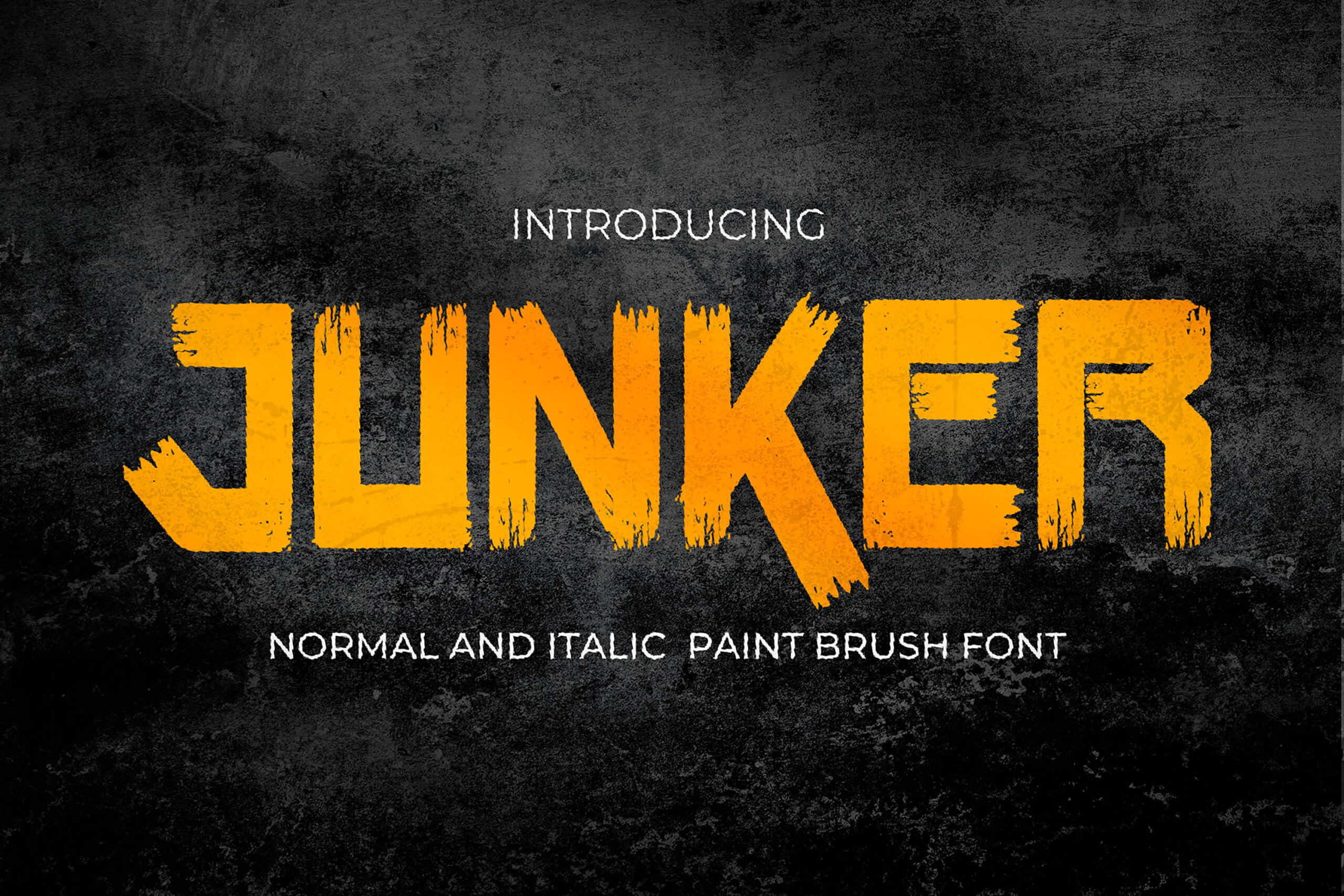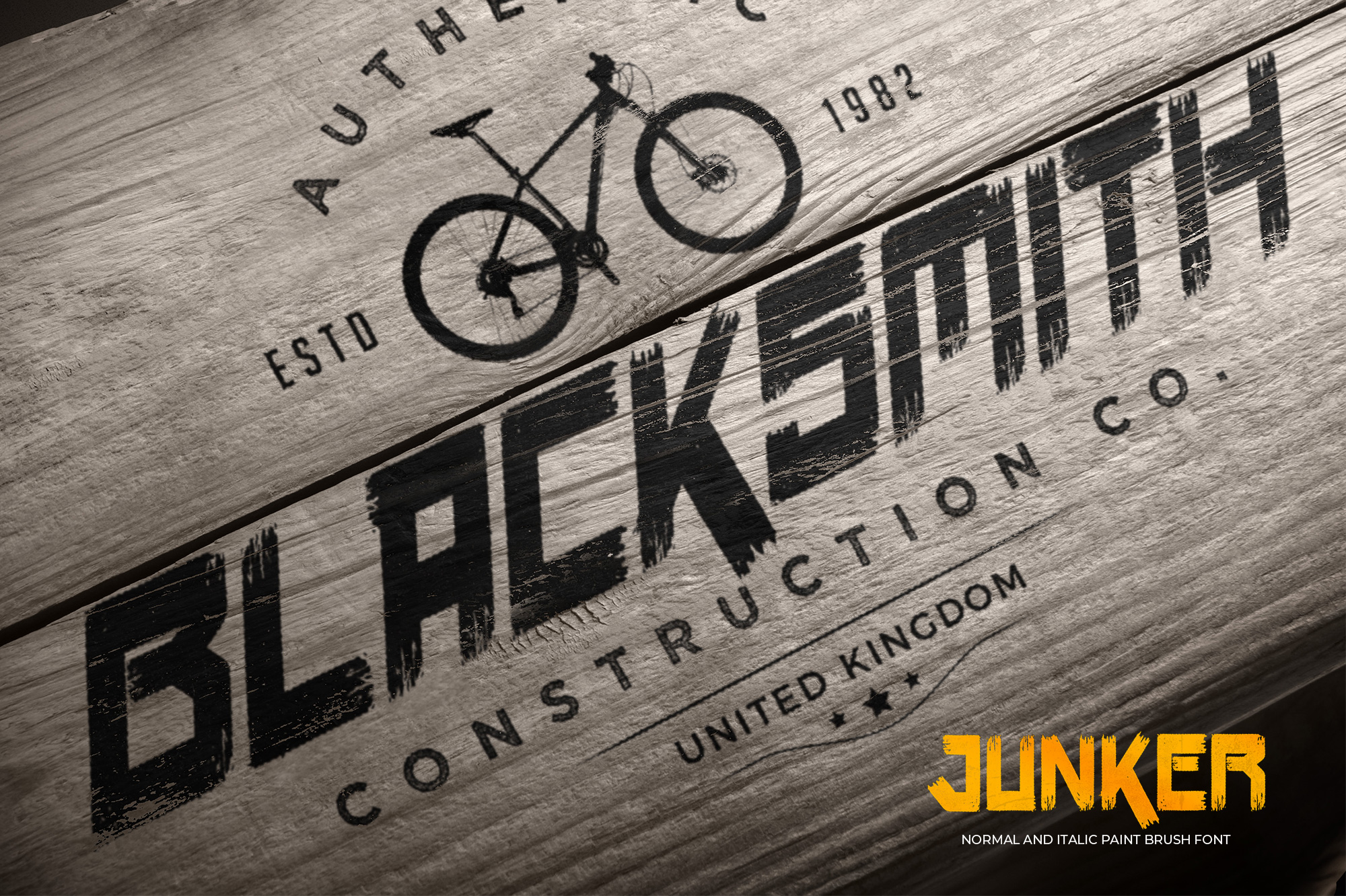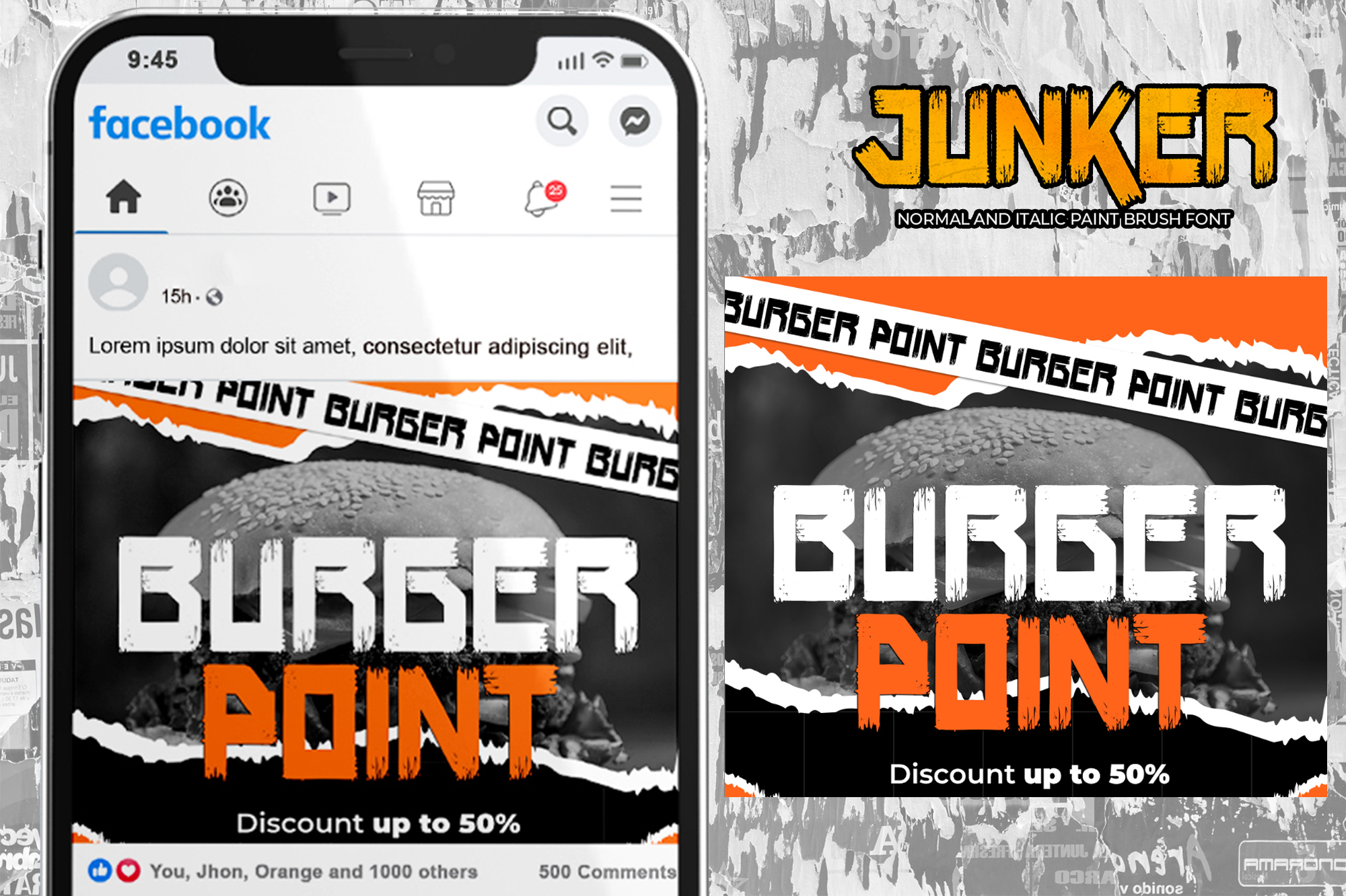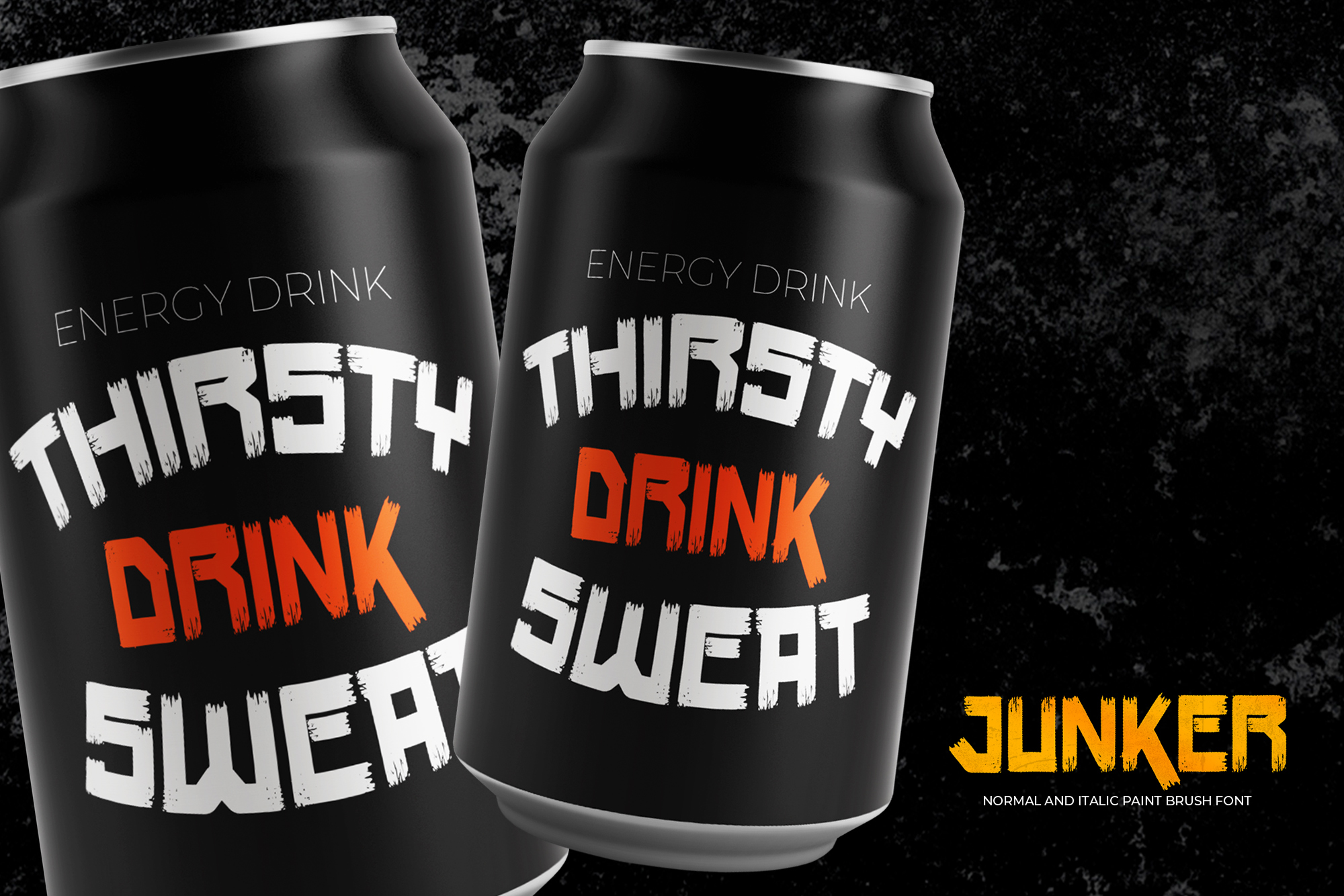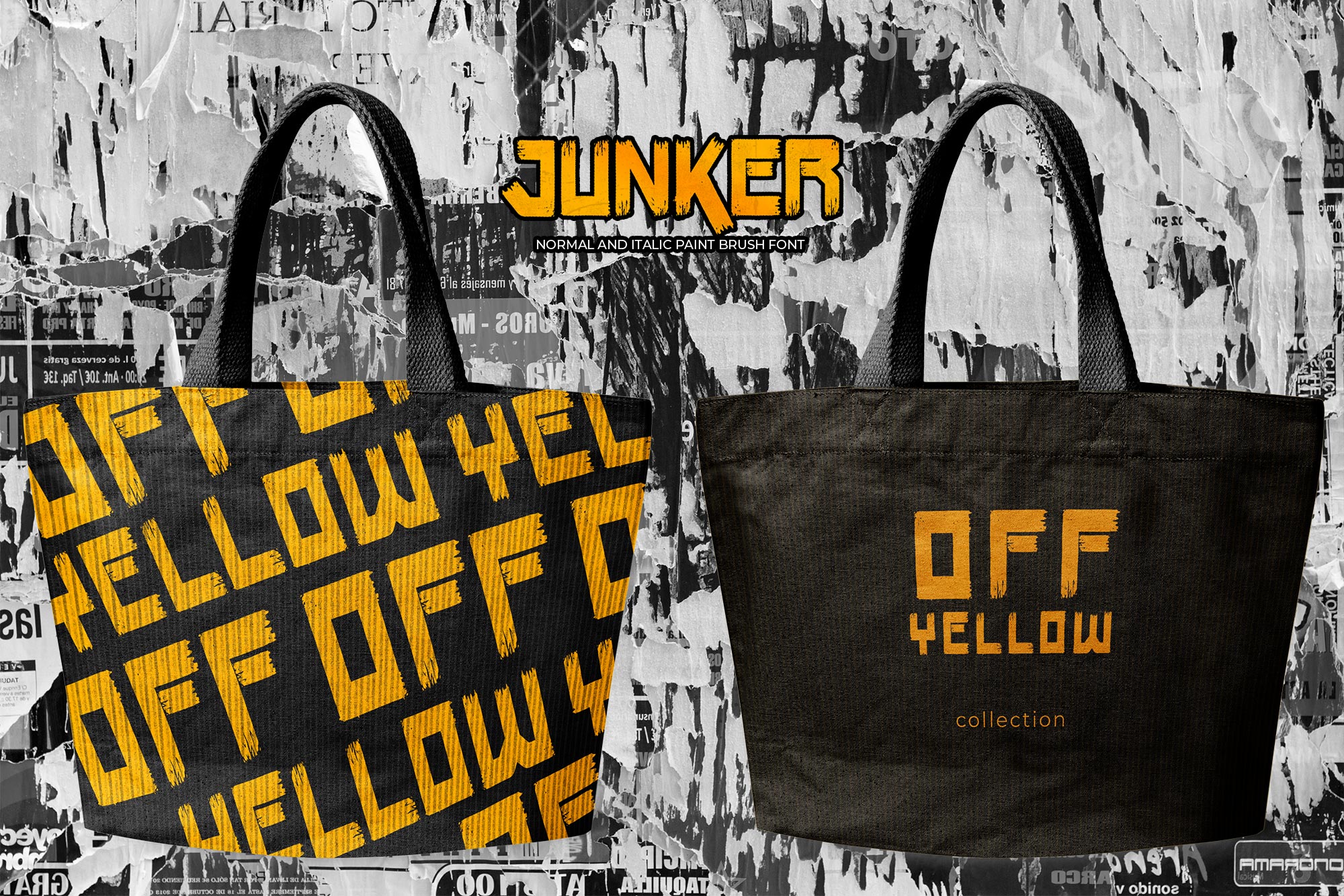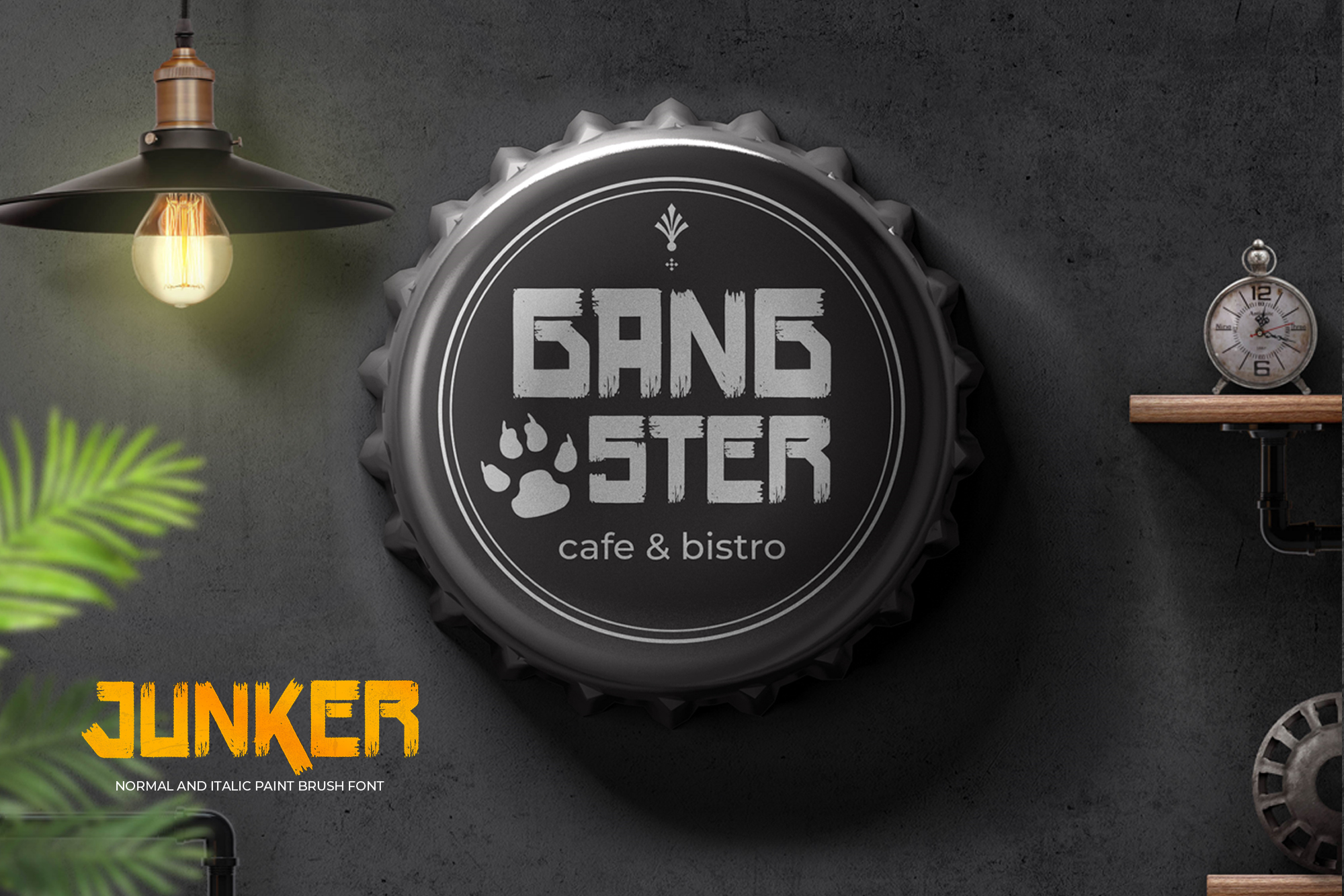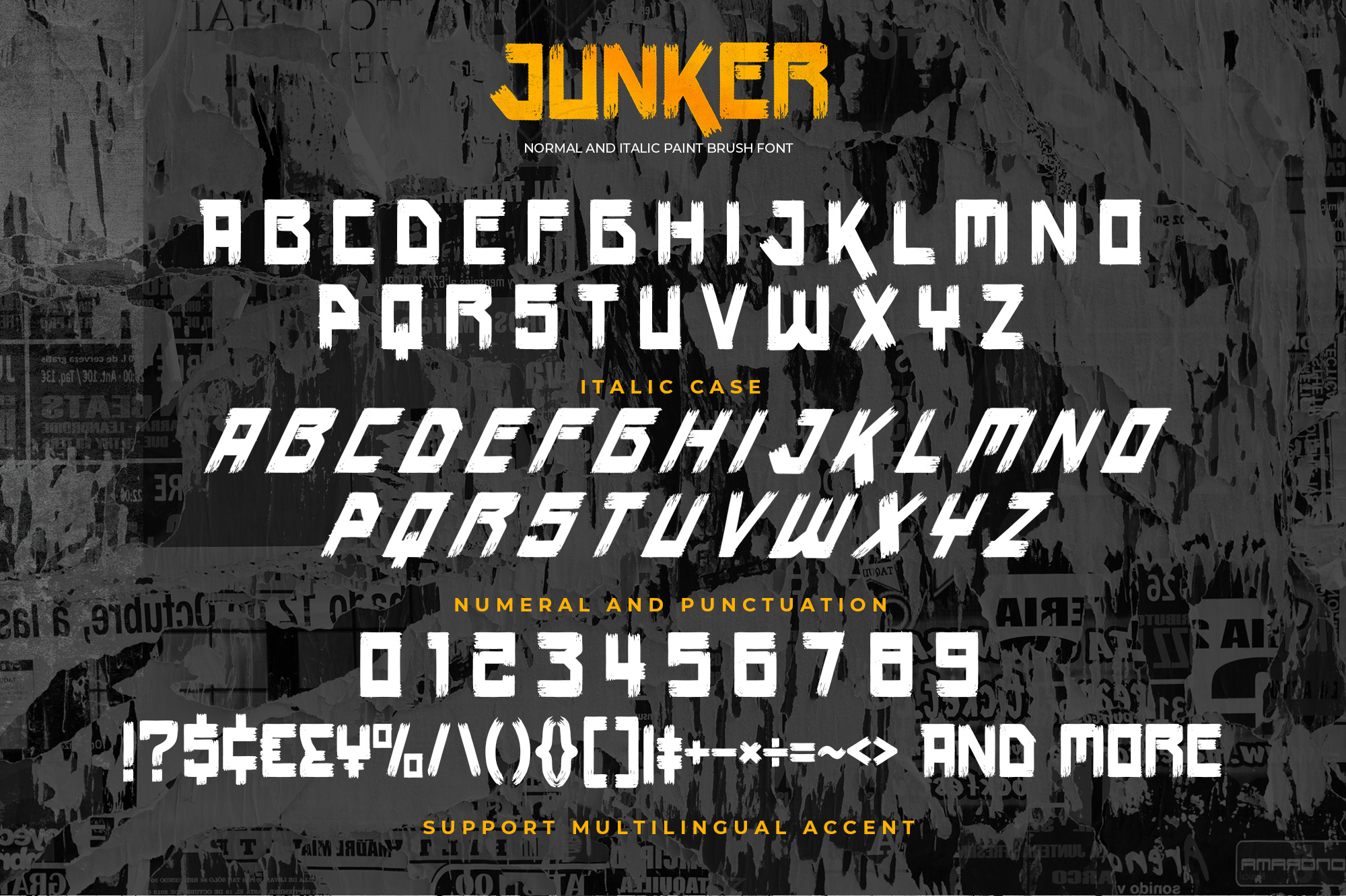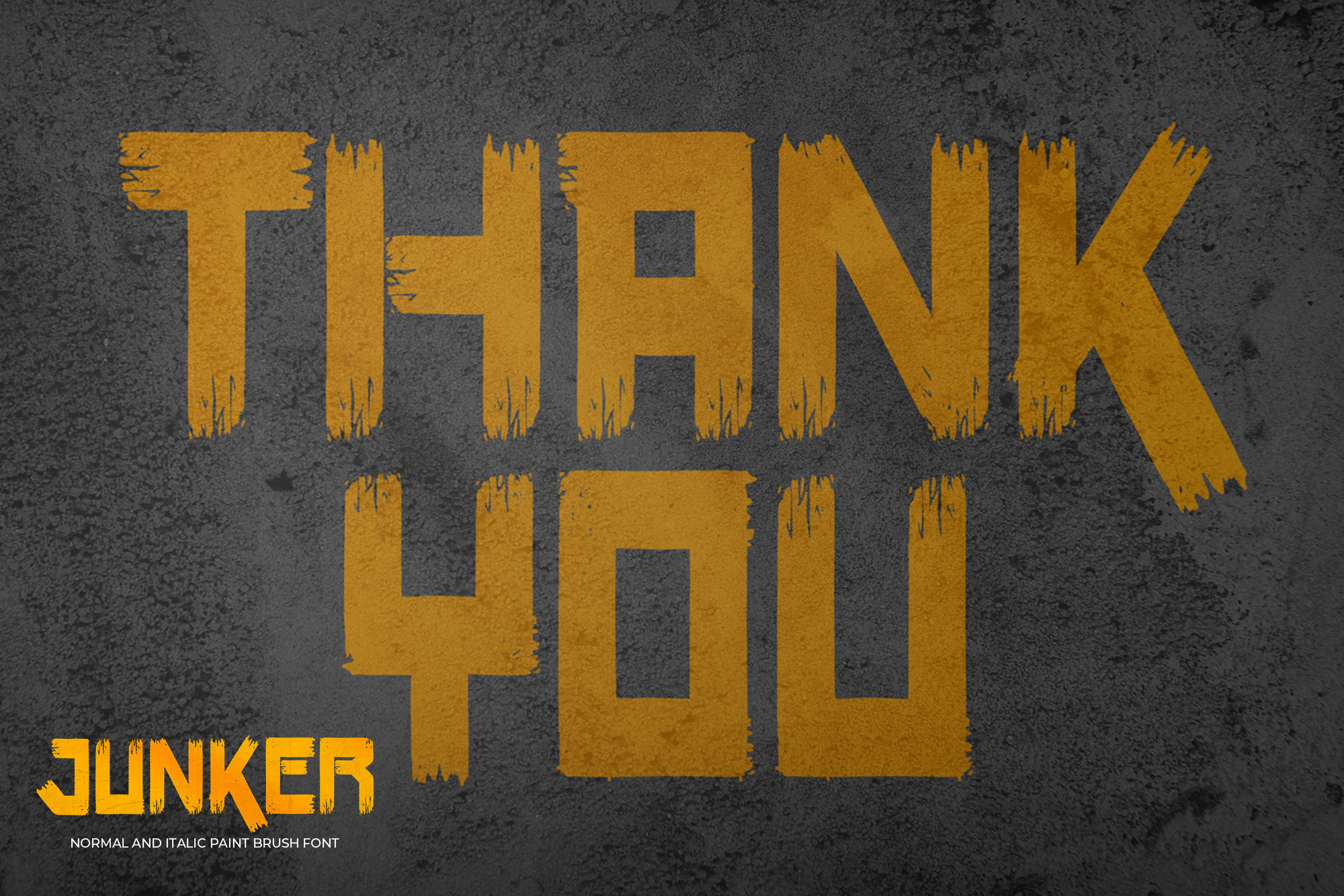
JUNKER – Normal And Italic Paint Brush Font is a Modern Font that is written casually and quickly.
That is why JUNKER has a authentic, and cool characteristic more natural look. You can activate Alternates glyphs OpenType panel.
JUNKER Perfect for designs, branding projects, Logo design,Quotes product packaging and another Project that strong require font.